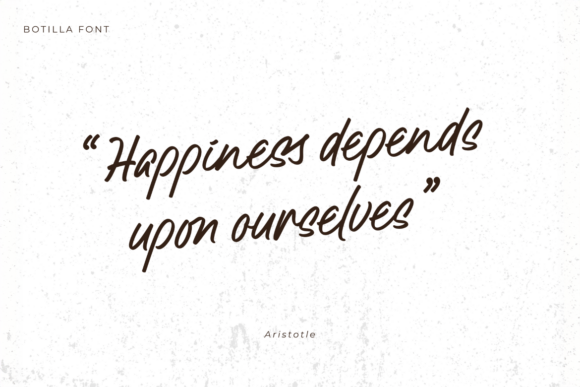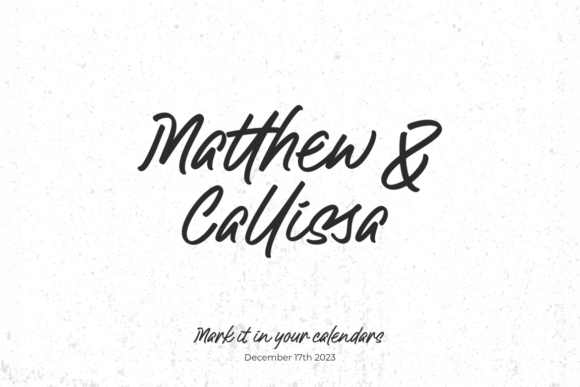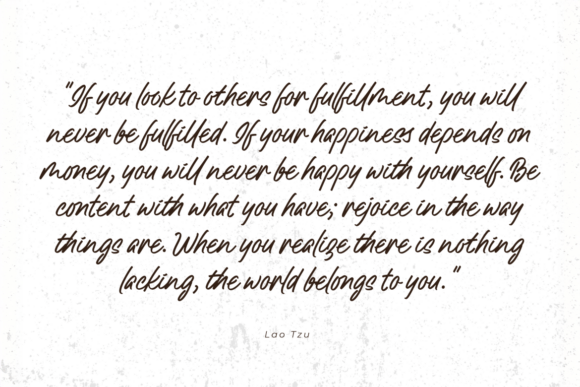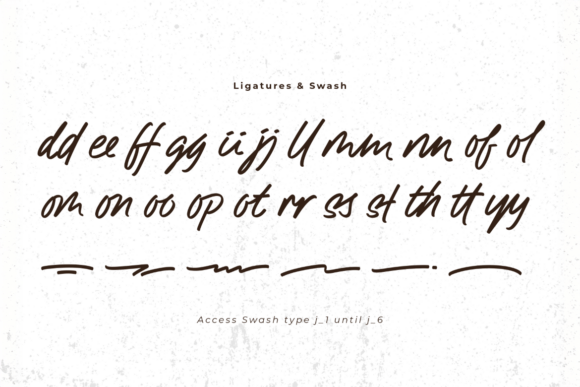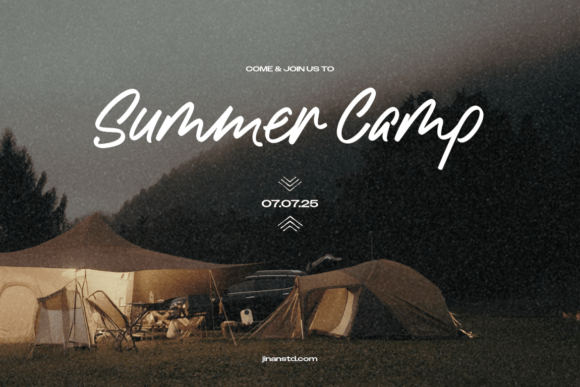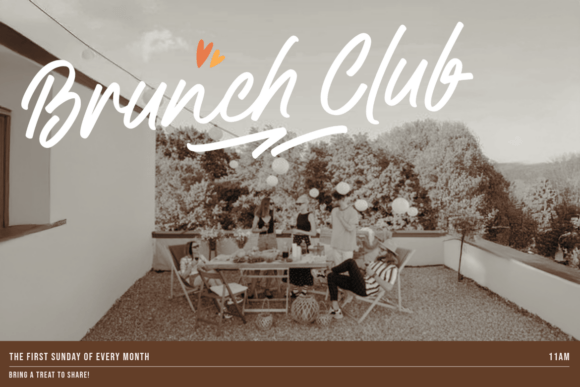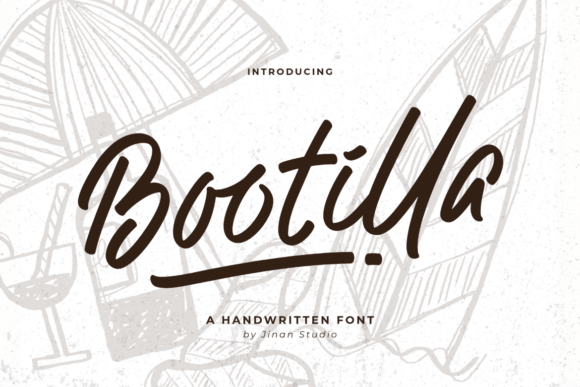
Unlock the Power of Modern Handwritten Design with Bootilla Font
In the realm of typography, few fonts manage to strike a balance between boldness and elegance. Bootilla, a modern handwritten font, is one such exceptional find. Its assertively bold yet smoothly drawn characters make it an ideal choice for designers and crafters looking to infuse their projects with a sense of unique creativity and personal flair.
The Empowering Allure of Bootilla
Bootilla’s flowing brush style exudes a robust individuality that sets it apart from other fonts. Its harmonious balance of strength and elegance delivers artistry that captivates, turning the ordinary into extraordinary. Whether you’re crafting brand identities, sleek logos, intriguing packaging, heart-touching quotes, or captivating social media designs, Bootilla is the perfect companion to elevate your creations.
Ideal for Brand Identities and Logos
Establishing a strong brand identity is crucial in today’s competitive market. Bootilla’s bold and elegant design makes it an excellent choice for logos, business cards, and other branding materials. Its unique character ensures that your brand stands out, making a lasting impression on your target audience. With Bootilla, you can create a cohesive visual identity that reflects your brand’s personality and values.
Elevate Your Packaging Design with Bootilla
Packaging design plays a vital role in product marketing. Bootilla can add a touch of sophistication and elegance to your packaging, making your product stand out on store shelves. Its smooth, flowing lines create a visually appealing effect that draws the eye and invites the consumer to engage with your product. Whether you’re designing labels, tags, or wrappers, Bootilla is the perfect font to make your product packaging shine.
Craft Heart-Touching Quotes and Captivating Social Media Designs
Bootilla’s elegant design makes it an excellent choice for quotes, social media graphics, and other digital content. Its flowing brush style adds a personal touch to your messages, making them more relatable and engaging. With Bootilla, you can create stunning social media graphics, blog posts, and other digital content that resonates with your audience. Whether you’re a blogger, influencer, or marketer, Bootilla can help you elevate your content and connect with your audience on a deeper level.
The Benefits of Using Bootilla Font
- Unique and Creative: Bootilla’s bold and elegant design ensures that your projects stand out from the crowd.
- Versatile: Suitable for a wide range of design applications, from branding and packaging to quotes and social media graphics.
- Elegant and Sophisticated: Adds a touch of sophistication and elegance to your designs, making them more captivating and engaging.
- Easy to Read: Despite its bold design, Bootilla remains easy to read, making it perfect for body text and headlines.